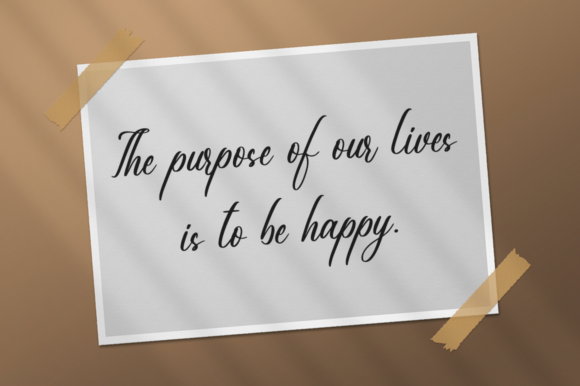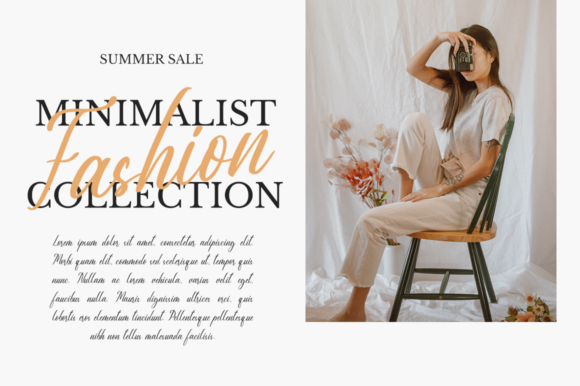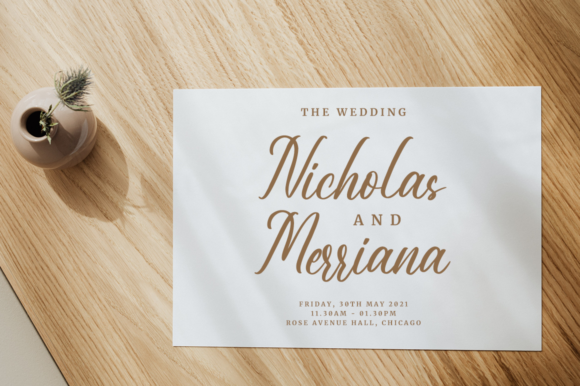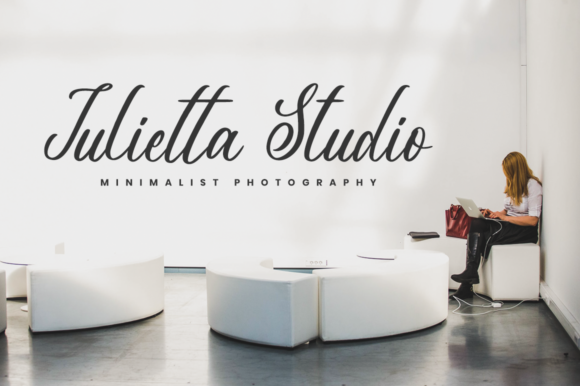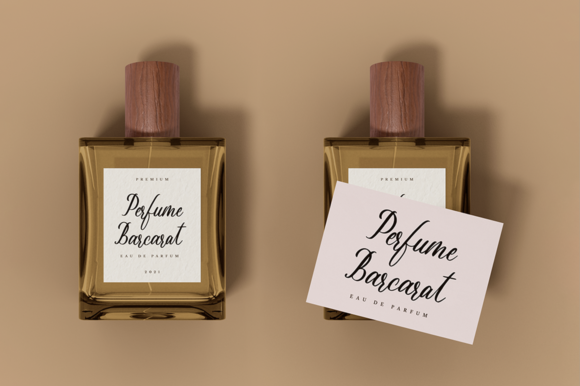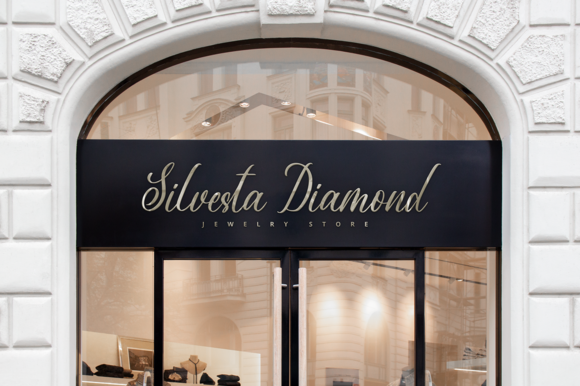
Discover the Elegance of Emiliana Font: A Delicate Handwritten Style
Are you a designer or crafter looking for a font that exudes elegance and sophistication? Look no further than Emiliana Font, a delicate, elegant, and flowing handwritten font that is sure to capture your heart. With its beautiful and well-balanced characters, Emiliana Font is an incredibly versatile style that can match a wide pool of designs, making it perfect for a variety of creative projects.
The Characteristics of Emiliana Font
Emiliana Font is a handwritten font that boasts a delicate and elegant appearance. Its flowing lines and curves create a sense of movement and fluidity, making it perfect for designs that require a touch of sophistication. The font’s characters are well-balanced, ensuring that each letter flows seamlessly into the next, creating a beautiful and harmonious visual effect.
The Versatility of Emiliana Font
One of the standout features of Emiliana Font is its versatility. This font can be used in a wide range of designs, from elegant wedding invitations and stationery to sophisticated branding and packaging. Its delicate and flowing style makes it perfect for designs that require a touch of whimsy and romance, while its elegance and sophistication ensure that it can be used in more formal designs.
Why Designers and Crafters Love Emiliana Font
Designers and crafters love Emiliana Font for many reasons. Firstly, its unique and elegant style sets it apart from more traditional fonts, making it perfect for designs that require a touch of personality. Secondly, its versatility ensures that it can be used in a wide range of creative projects, from digital designs to print materials. Finally, Emiliana Font is incredibly easy to use, making it perfect for designers and crafters of all skill levels.
Tips for Using Emiliana Font in Your Designs
Here are a few tips for using Emiliana Font in your designs:
- Use Emiliana Font in combination with other fonts to create a unique and visually appealing design.
- Use Emiliana Font to add a touch of elegance and sophistication to your design, or to create a more whimsical and romantic feel.
- Don’t be afraid to get creative and try new things – Emiliana Font is a versatile font that can be used in many different ways.
In conclusion, Emiliana Font is a delicate, elegant, and flowing handwritten font that is perfect for designers and crafters looking for a touch of sophistication and elegance in their designs. Its versatility, unique style, and ease of use make it a popular choice for a wide range of creative projects. Whether you’re looking to create a elegant wedding invitation, a sophisticated brand identity, or a whimsical craft project, Emiliana Font is sure to inspire your creativity and help you achieve your design goals.
Key Features of Emiliana Font
- Delicate and elegant handwritten font
- Flowing lines and curves create a sense of movement and fluidity
- Well-balanced characters for a harmonious visual effect
- Incredibly versatile and easy to use
- Perfect for a wide range of creative projects, from digital designs to print materials
So why wait? Fall in love with Emiliana Font and discover the elegance and sophistication it can bring to your designs. With its beautiful and well-balanced characters, Emiliana Font is sure to become a favorite in your design toolkit.